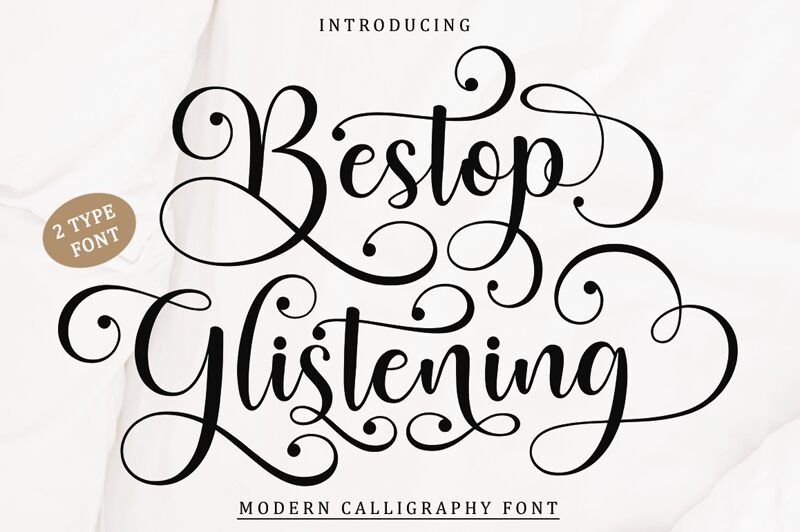
Bestop Glistening font was designed by Muhammad Nazar with an elegant, decorative calligraphic anatomical style. This free calligraphy font results in a sophisticated and whimsical mood that works for projects like invitations or branding. It features the famous flowing quality of calligraphy fonts but matches projects prepared in contemporary times.
Use Bestop Glistening for greeting cards, business cards, title sequences, quotes, book covers, shopping cards, wrapping papers print design ideas. Or use it to beautify packaging design such as labels or wraps for candles or cosmetic products like lotion. Other sources of inspiration would be the wedding industry like outfits or venues names and branding.
Features: Early & Late Swash & Ligatures